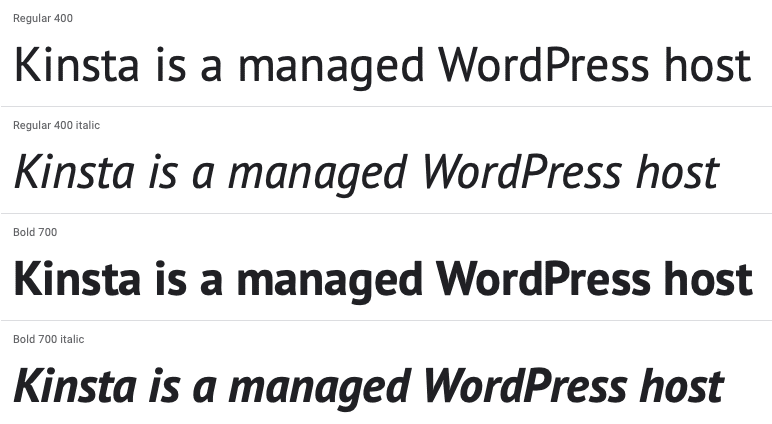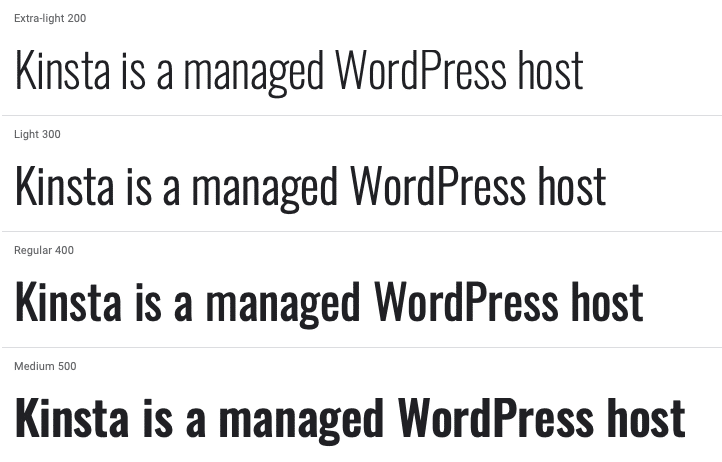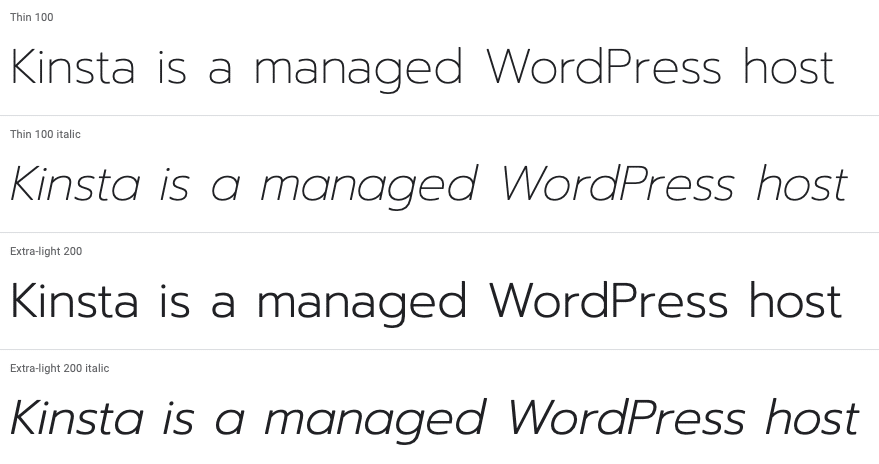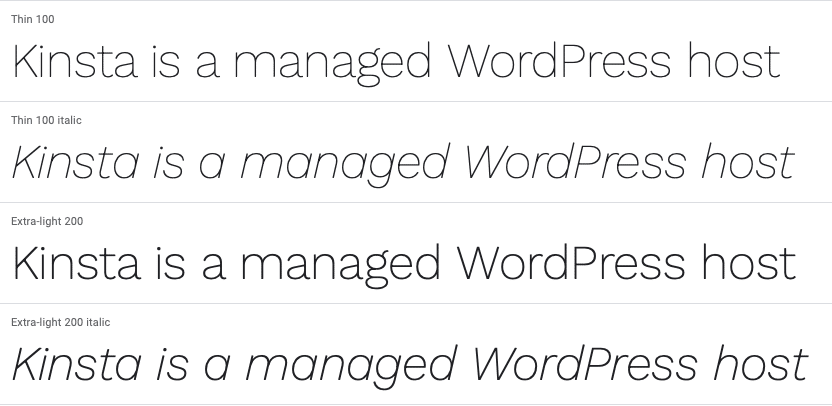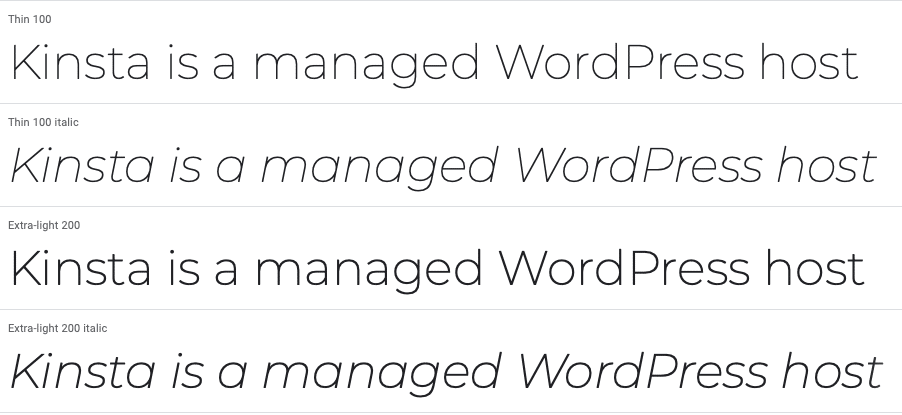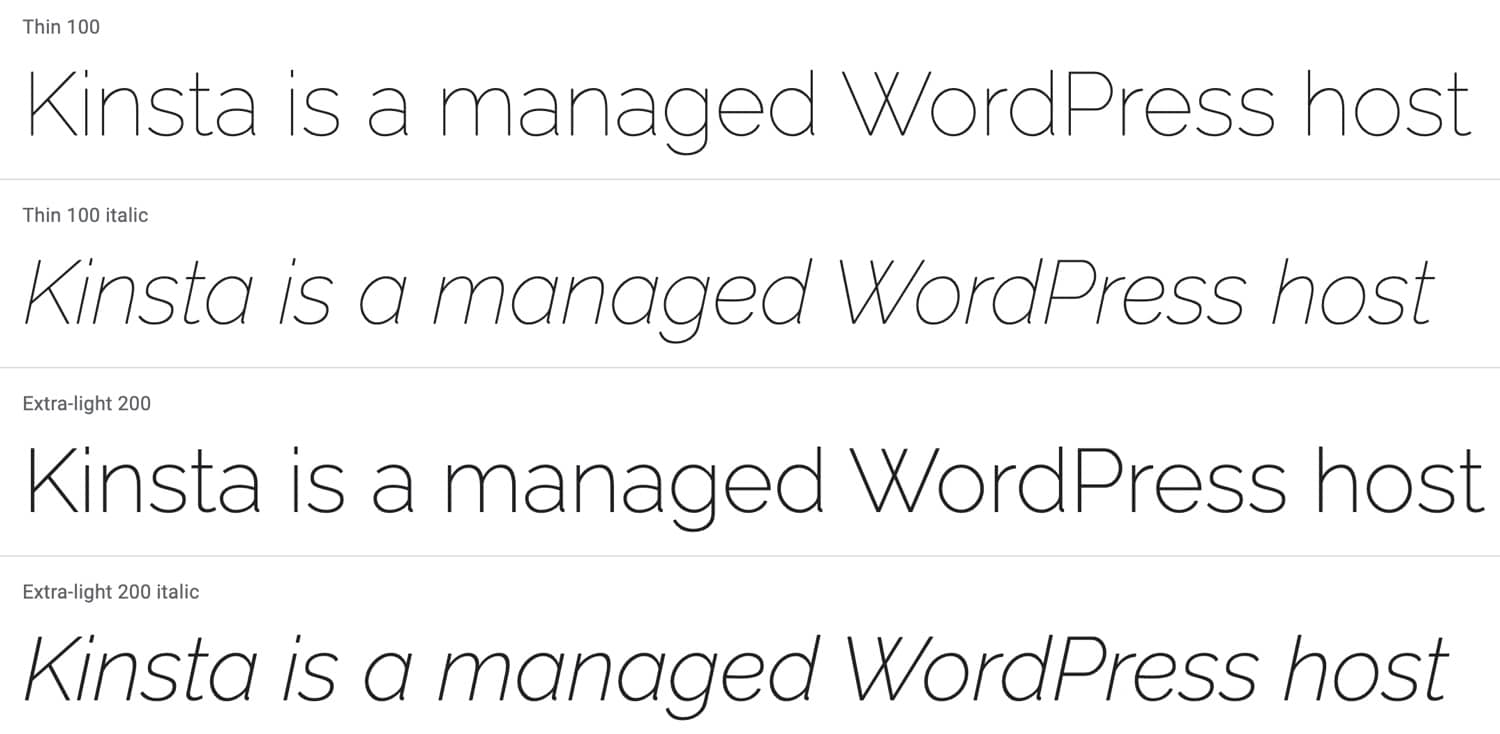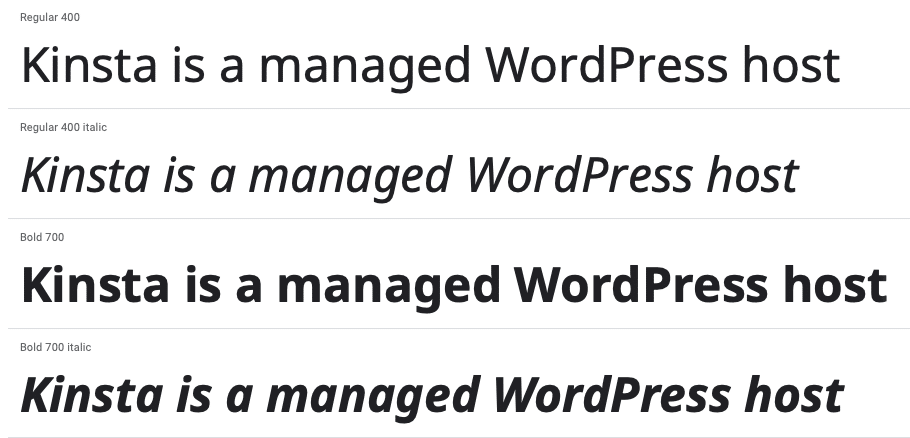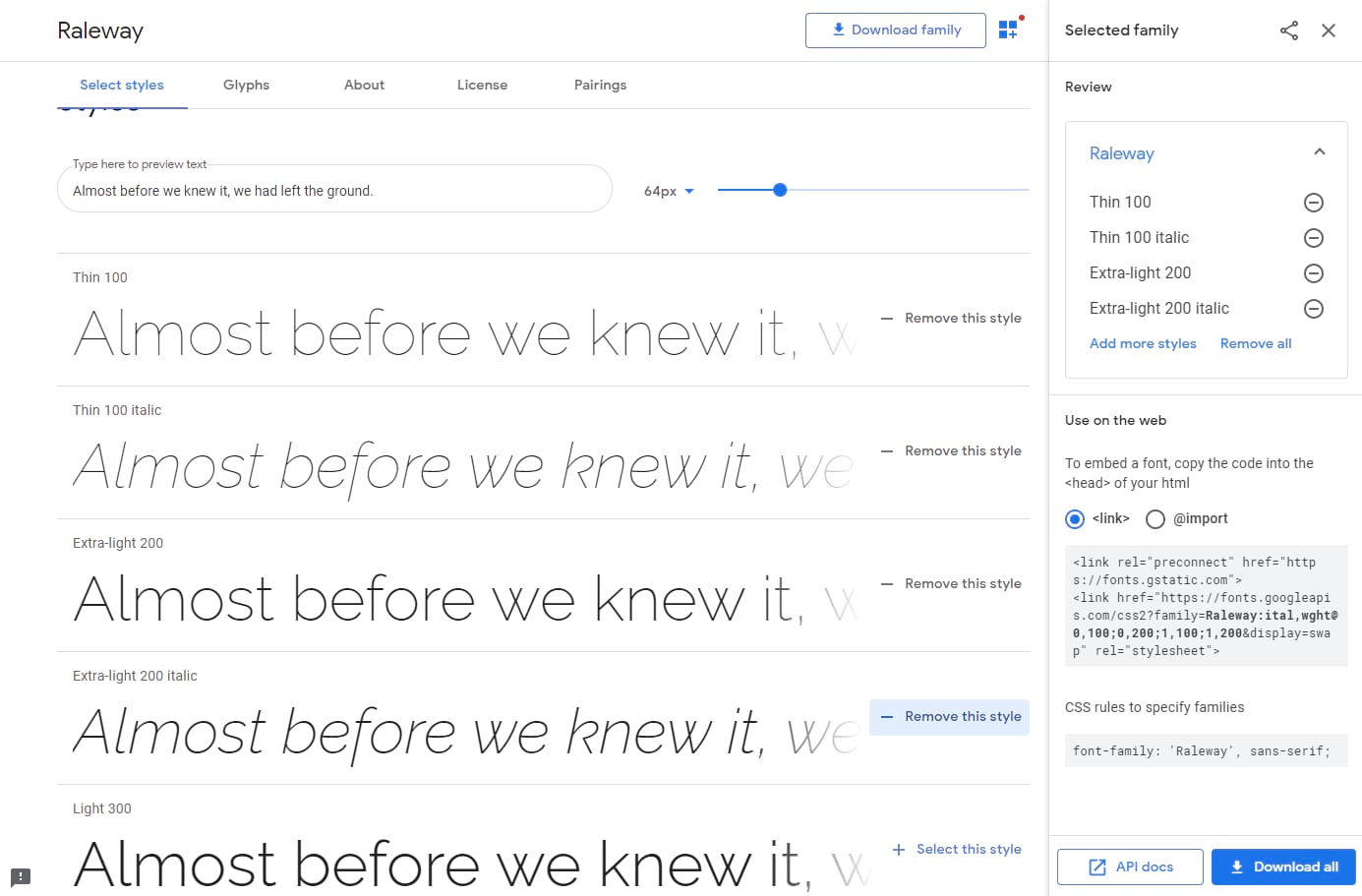
15 Best Google Fonts by the Numbers in 2023
1. Inter (Google Fonts)
2. Roboto (Google Fonts)
3. Montserrat (Google Fonts)
4. Open Sans (Google Fonts)
5. Lato (Google Fonts)
6. Oswald (Google Fonts)
7. Raleway (Google Fonts)
8. Source Sans Pro (Google Fonts)
9. Merriweather (Google Fonts)
10. PT Sans (Google Fonts)
11. PT Serif (Google Fonts)
12. Roboto Slab (Google Fonts)
13. Playfair Display (Google Fonts)
14. Noto Sans (Google Fonts)
15. Ubuntu (Google Fonts)
There are 1052 different Google Font families available for free (at the time of writing this article). That’s a lot of choices! So it’s no wonder you need help finding that needle in a haystack with a list of the best Google Fonts.
Choosing a font is more than just an aesthetic choice — it can have a substantial effect on your site’s bounce rates and conversion rates, especially if you choose a font that’s hard to read. Therefore, it pays to take a little time to pick the perfect Google Fonts family for your website, rather than using the first font that you come across.
Why Use Google Fonts?
There are thousands of font repositories on the internet, so what exactly makes Google Fonts so special?
Google Fonts catalog.
Firstly, it’s free! On top of that, Google Fonts are maintained and delivered by Google, which means they’re guaranteed to be safe. Of course, there are plenty of dodgy websites where you can download free fonts, but who knows what else you’ll pick up with those files?
The quality of fonts on such websites can sometimes be questionable as well.
Google has curated a selection of over a thousand high-quality fonts. When you’re not a graphic designer with a perfect eye for typography, it’s a safer choice.
While Google Fonts tend to be simple and perhaps not as flashy as some paid fonts, it certainly beats web-safe fonts that come preinstalled with major operating systems, the same fonts everyone has seen thousands of times before.
What to Look For in a Google Font?
If there’s one thing you should learn when designing a website, it’s how to choose a Google Font that’s suitable for your project. Good typography will make or break your site.
It may seem like an unimportant detail, but it can be the difference between someone leaving your site early or sticking around to become a loyal reader or customer.
Choosing the right font is something graphic designers spend years mastering, but keeping a few principles in mind, you can pick a beautiful font for your website.
• Fits Your Brand: This may be the most critical aspect. The best websites have a font that shows off their personality while still being readable and fitting in with the current design. For instance, Apple and Iron Maiden use vastly different fonts, but they both fit their brand.
• Readability: The second most crucial principle is readability. A zany fantasy or grungy font may certainly fit your brand, but if your visitors can’t read it, they’ll be quick to leave. Therefore, your fonts must be professional and legible.
• Font Classification: While there are hundreds of ways to classify a font, these are the five main types: serif, sans-serif, script, monospace, and decorative. A script or serif font conveys elegance, while monospace fonts are popular on tech sites. Knowing these classifications will give you a better starting point in your search.
• Display or Body Font: Display fonts are for large sizes, headers, or print projects. They can afford to be less legible for the sake of unique design. Body fonts’ primary directive is readability, as they’ll make up the bulk of your site.
• Mood and Intent: Just like any artistic work, artists design fonts for specific moods and settings. Most fonts will come with notes on how they were designed and how you can use them. Use them to decide whether the font suits your project.
The 10 Best Google Fonts in 2023 (According to the Wisdom of the Crowds)
So, how do you develop a list of the best Google Fonts when so much of this is subjective? We don’t want this entire list to be biased, so we’re going to go with the data to build a list of the most popular Google Fonts.
We’ll use Google Fonts analytics to trust the wisdom of the crowds. With over 50 trillion total font views, Google has just a little bit of data to pull from.
Then, we’ll go a bit beyond the raw popularity numbers and choose some up-and-coming HTML fonts that are gaining popularity.
Ready? Let’s dive in!
1. Roboto
Roboto.
The long-running #1 spot and Kinsta’s font of choice, Roboto is a sans-serif offering from Christian Robertson that Google developed as the system font for Android. It’s now massively popular, comes in 12 different styles, and makes multiple appearances on Google Fonts’ analytics.
For example, Roboto is the most popular font. But Roboto Condensed is also the sixth most popular font, and Roboto Slab also makes an appearance at number 12!
2. Open Sans
Open Sans.
Open Sans Condensed is a highly legible font commissioned by Google and inspired by its predecessor Droid Sans. Google uses Open Sans on some of its websites and its print and web ads. Open Sans Condensed, its sister font here, also holds the thirteenth most popular spot on Google Fonts.
3. Lato
Lato.
Lato is another popular choice from Łukasz Dziedzic. It has quite the story behind its design, balancing conflicting goals, resulting in a unique, lightweight sans-serif font.
4. Montserrat
Monstserrat.
Montserrat is a sans-serif font from Julieta Ulanovsky, who lives in the eponymous Montserrat neighborhood of Buenos Aires. With 18 different styles ranging from light to heavy, you have quite a lot of choice.
5. Oswald
Oswald.
Oswald is a sans-serif font originally developed by Vernon Adams. It was designed with the distinct Alternate Gothic style in mind, made evident by its bold strokes.
6. Source Sans Pro
Source Sans Pro.
Source Sans Pro is a sans-serif font created for Adobe and Adobe’s first open-source font. Made by Paul Hunt, its light lettering makes it clean and legible.
7. Slabo 27px/13px
Slabo.
Slabo is a serif font developed by John Hudson of Tiro Typeworks. This font is specifically designed for certain sizes — either 27px or 13px, depending on your needs.
8. Raleway
Raleway
With 18 different styles, Raleway is another large-family sans-serif font, initially created by Matt McInerney. If you like Raleway and are looking for something unique, Raleway Dots offers similar styling with a dotted approach that can work for big headlines.
9. PT Sans
PT Sans.
PT Sans was developed for the Public Types of Russian Federation and, as such, includes both Latin and Cyrillic characters. There are also several other fonts in the PT family, including some serif options.
10. Merriweather
Merriweather.
Merriweather’s name evokes the idea of a pleasant design, and that’s exactly what its designers intended. While not quite as popular, Merriweather Sans is a sister project that pairs exceptionally well with it.
Bonus Fonts + Up-And-Comers
By the numbers, the ten fonts above are the most popular Google Fonts. But only showing the most popular options does a disservice to great up-and-coming fonts that haven’t gotten the exposure to show up on the analytics.
Here are some of our favorites that didn’t make an appearance at the top of the analytics.
11. Noto Sans / Serif
Noto Sans / Serif.
Noto is a Google-commissioned font that comes in both serif and sans-serif versions. It’s receiving regular updates, and there are now well over 100 Noto fonts, with more coming all the time!
Noto’s goal is to cover all the alphabets and characters from various languages while its distinct design harmonious across hundreds of different font families. These derivatives include the popular Noto Sans KR and Noto Sans JP.
12. Nunito Sans
Nunito Sans.
Nunito Sans is a sans-serif option that’s rapidly growing in popularity. Its use tripled between 2018 and 2019, and it only gets more popular every year.
13. Concert One
Concert One.
Concert One is a rounded grotesque typeface that makes a stellar option for headlines. Its unconventional design is sure to draw eyes.
14. Prompt
Prompt.
Prompt is a sans-serif offering from Thai communication design firm Cadson Demak. It is loopless (the Thai equivalent of sans-serif) and includes both Thai and Latin characters.
15. Work Sans
Work Sans.
Work Sans is a sans-serif font optimized for use on screens. The designers recommend using the middleweight styles for anything from 14px-48px.
How to Create the Best Google Fonts Combinations?
If you thought trying to choose one font from Google Fonts was hard, wait until you try to pair them up on your site! Thankfully, this isn’t a problem you have to solve (unless you want to). You can use a couple of ways to come up with the best Google Fonts combinations.
First, the Google Fonts website itself will suggest popular pairings if you scroll down the page:
Discovering popular Google Fonts pairings.
Beyond that, you can also use a site like Font Pair to get more suggestions.
Best Practices for Using Google Fonts on WordPress
Once you find the perfect fonts for your project, here are some best practices for using Google Fonts on WordPress.
Limit the Number of Font Weights You Use
Some of these fonts — like Montserrat and Raleway — come with 18 different font weights. While that’s good for giving you options, you don’t want to load all 18 weights on your WordPress site because it will slow your load times down.
Following this guideline is very important!
For most fonts, a good rule of thumb is to use three weights as a maximum:
Many WordPress sites we see nowadays are even skipping italic and just going with two different font weights.
If you’re embedding Google Fonts yourself, you can choose exactly which weights to include. First, visit a font page and then click Select this style next to the ones you want.
Choosing a font in Google Fonts.
Most WordPress themes today include easy ways to choose which Google Fonts and weights you want to use. But not all theme developers are focused on performance. So in some cases, it might be better to disable Google Fonts in your theme and add them yourself.
Variable fonts are also starting to become popular and are supported by all modern browsers. These are awesome because it allows one font file to transform with different properties. Google Fonts has plenty of variable fonts to choose from, and you can even narrow down your search to those specifically.
Consider Hosting Google Fonts Locally
As an alternative to serving up fonts from Google’s server, you can also host fonts locally, offering performance benefits. However, remember that most Google fonts are probably already cached in people’s browsers. So we recommend doing your performance tests.
If you’re using a premium font other than Google fonts, like the “Brandon” font we use on our Kinsta site, hosting them locally (and serving them from your CDN) is the best route. For more on this topic, check out our posts on how to host fonts locally.
Pick a Font That Will Get Updates
Fonts are just like WordPress plugins and themes — over time, they receive updates and improvements to make them even better. And while the stakes are nowhere near as dire as WordPress plugins, it can still be beneficial to pick a font that receives regular updates. For example, the Noto family from Google has gotten regular updates since 2014.
Because most of the fonts on this list are popular, it’s probably a good bet that any font on this list will receive regular updates and improvements. And if you decide to go off-list, making sure whichever font you choose is popular enough to get attention is never a bad idea.
Don’t Forget About Accessibility
According to the World Health Organization, according to data collected in 2015, an estimated 253 million people live with vision impairment: 36 million are blind, and 217 million have moderate to severe vision impairment. In addition, the number of people with some form of impairment has risen to 2.2 billion as of 2023.
When using Google Fonts, you get to control how it looks with CSS, such as color and size. So don’t forget to follow the Web Content Accessibility Guidelines (WCAG) 2.0. That will ensure your content is easily accessible to everyone.
Following these guidelines will make content accessible to a broader range of people with disabilities, including blindness and low vision, deafness and hearing loss, learning disabilities, cognitive limitations, limited movement, speech disabilities, photosensitivity, and combinations of these. – Web Content Accessibility Guidelines (WCAG) 2.0
One critical guideline is the color contrast. Our font was a little too light on an older design of the Kinsta website, and visitors voiced their concerns as it made it hard to read. The last thing you want to do is publish amazing content, only to have it become a strain on people’s eyes!
You can use a tool like the Color Contrast Checker from WebAIM to see if your font colors pass the official recommendations. For example, you can see that the colors on our blog posts now passed the test. ?
Color contrast checker tool.
How to Add Google Fonts to WordPress?
With a font or two picked out, the final step is to add it to your website. Thanks to Google Fonts, this task is even easier than usual.
Suppose you want to get a font onto your website. In that case, you have three options: installing a plugin such as Easy Google Fonts or Google Fonts Typography, using the Google Fonts API to upload the font to your site, or manually downloading it and hosting it on your website.
If you need to know how to change your fonts in WordPress, we’ve written up a detailed guide to help you out.
Summary
Google Fonts are fantastic and used by millions of websites. They make the web more pleasant, open, swift, and accessible through solid typography and iconography principles.
To ensure a better overall experience for your visitors, we recommend you follow best font practices such as limiting font weights, hosting fonts locally (if needed), and sticking to accessibility guidelines.
Now over to you — what are your favorite fonts and font pairs from Google Fonts? Let us know below in the comments, and don’t forget to read our in-depth guide on WordPress fonts!